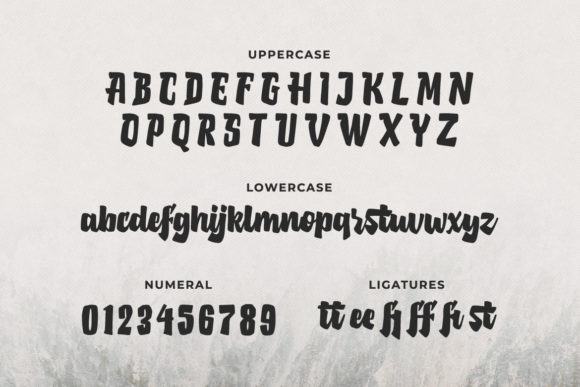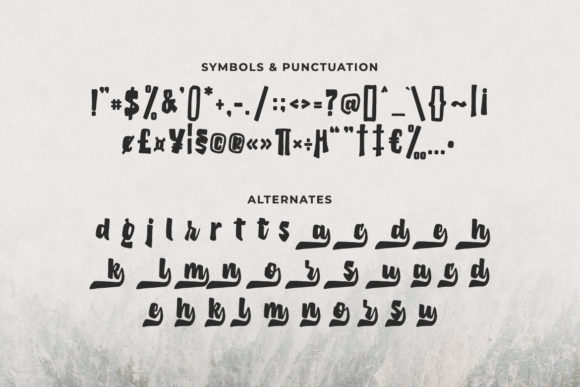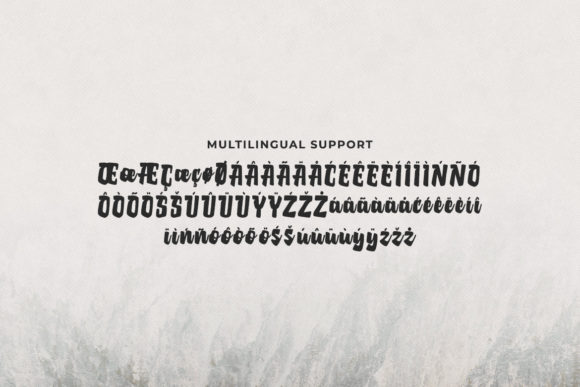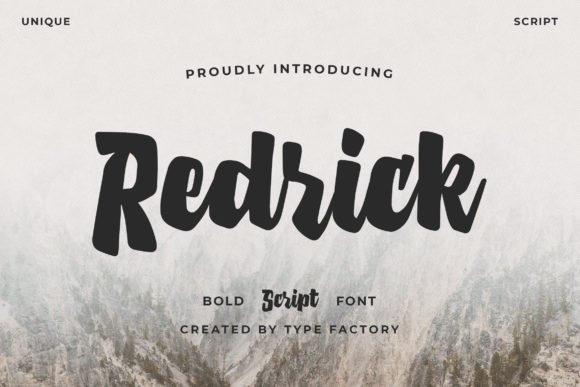
Introduction to Redrick Font
Redrick is a bold and cool looking handwritten font.
It can be used for various purposes such as logos, headings, letterhead, signage, labels, news, posters, badges and so much more .
Key Features of Redrick Font
Why Choose Redrick Font?